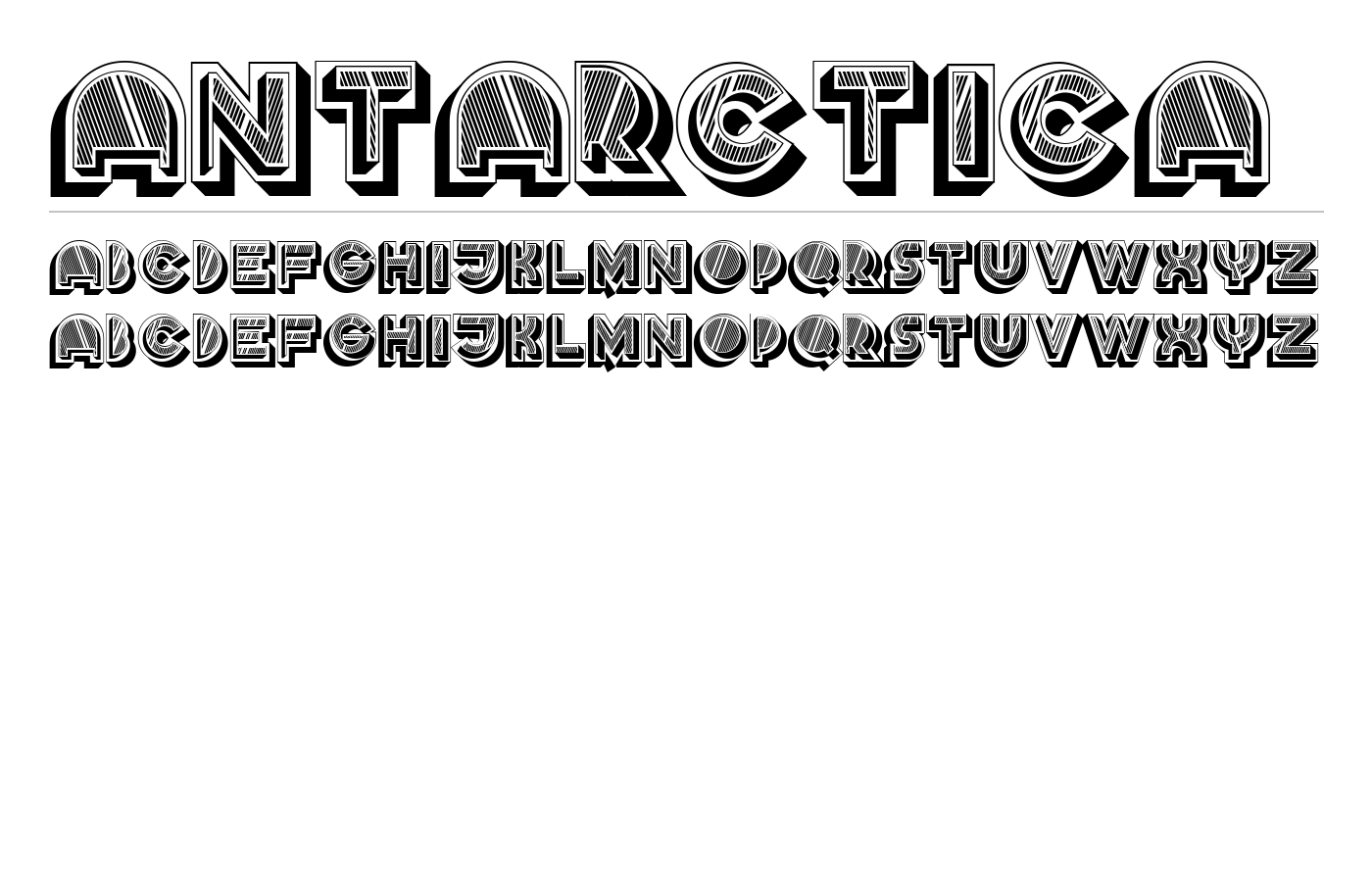
Antarctica is a bold, decorative sans serif font with a strong 3D effect created by layered shadows and diagonal stripes, giving it a dynamic and eye-catching appearance. Its geometric letterforms and thick weight make it perfect for display use in posters, headlines, and branding where a playful yet impactful style is desired. This font works well for designs that want to stand out and convey a lively, vintage-inspired vibe.
Antarctica Font
About Antarctica Font